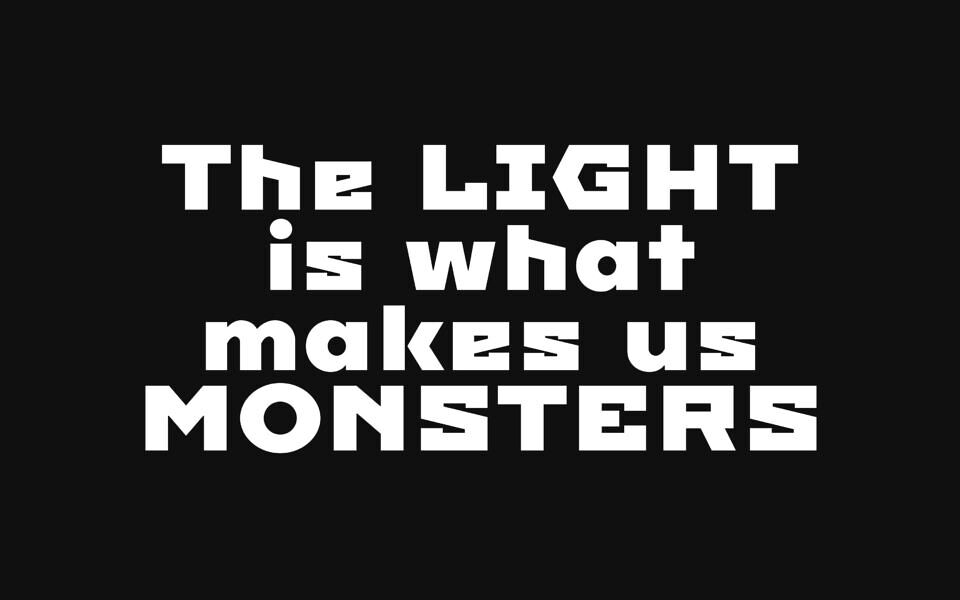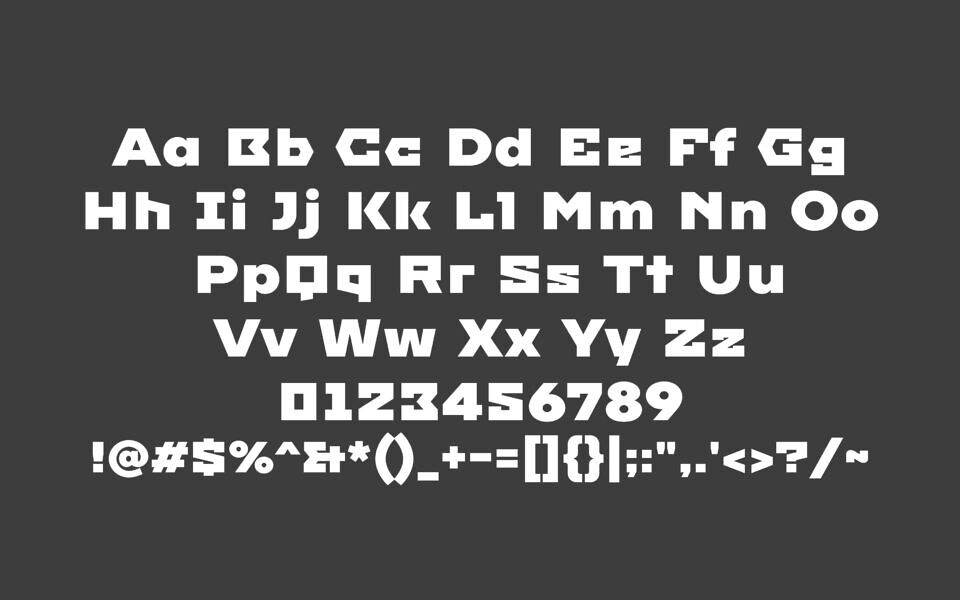
Imperial One Font
Imperial One is a bold, sci‑fi display font by Jovanny Lemonad (TypeType), licensed under the SIL Open Font Loan (OFL). It draws inspiration from the corporate typeface of the classic RPG The Mandate, lending it a gritty, space‑opera grit.
Featuring wide, blocky letterforms with subtle Russian‑influenced accents, it’s both authoritative and industrial. Recently, it’s been used in the logo and marketing for the atmospheric FPS Atomic Heart, giving the game its distinctive retro‑futuristic edge. Ideal for titles, posters or any sci‑fi/retro projects.